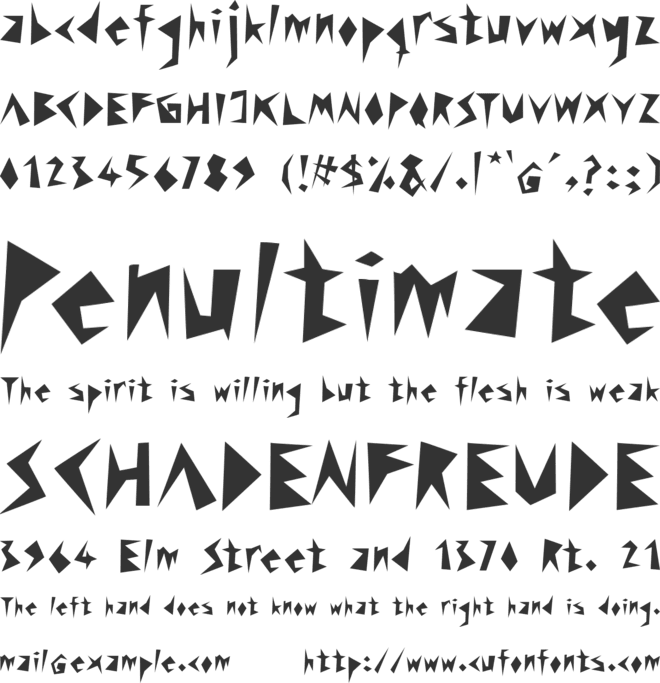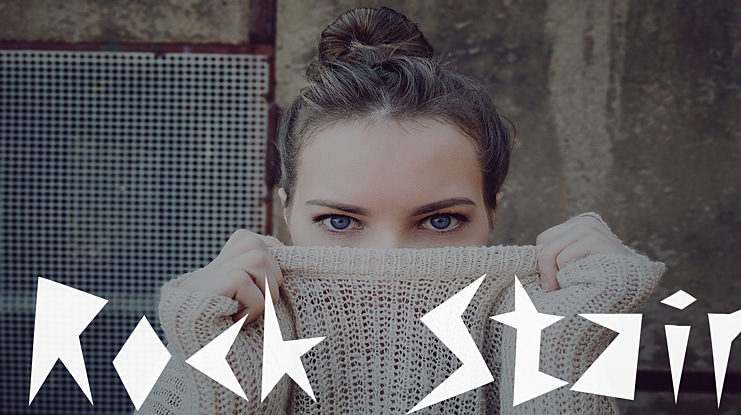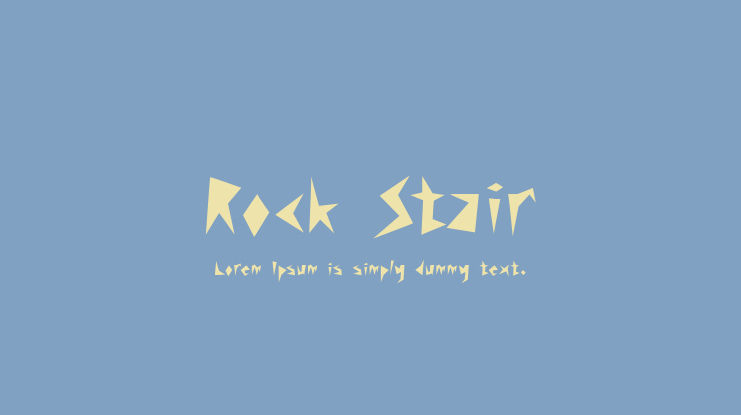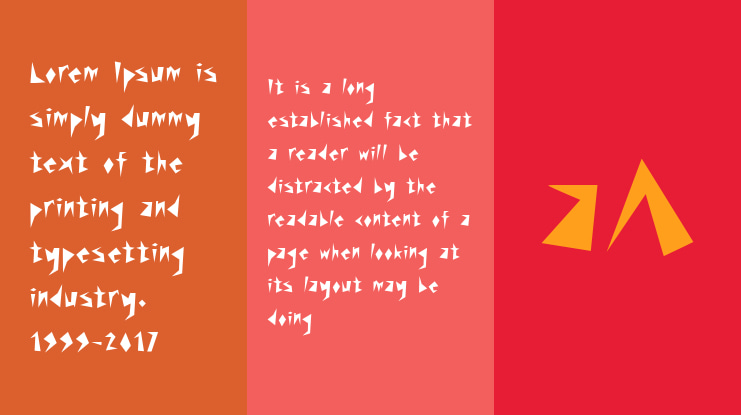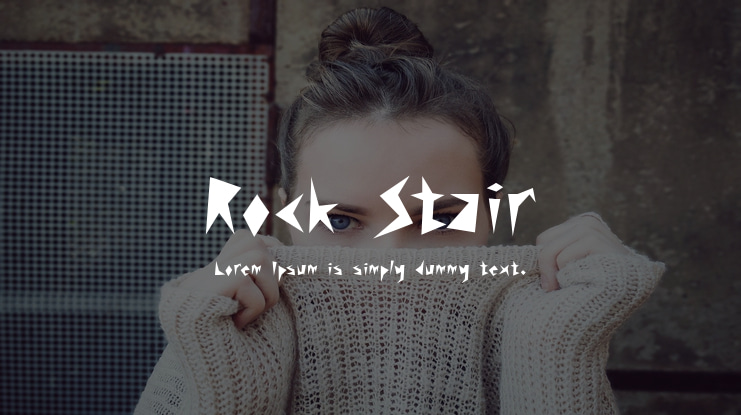
Rock Stair Font
Introducing a new simple geometry font, this font will nice for rock theme, or lazy comic typeface. This font have 285 glyph who supported to basic Latin and Eastern Europe character.